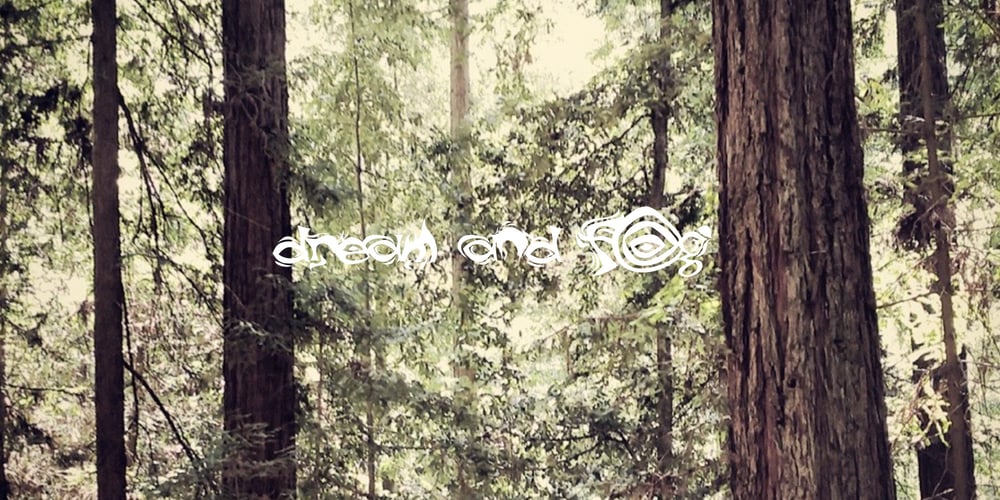
Dream And Fog
Dream And Fog font
Dream And Fog Font Family was designed by Mitch Greer and published by Atorie. Dream And Fog contains 1 styles and family package options. A perfect font for the uniqueness and magic of SF in the early hours of the morning,